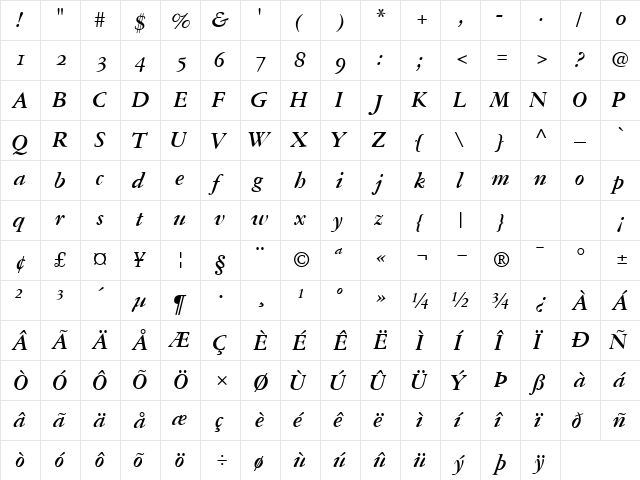
GaramondRepriseOSSSK BoldItalic Font Preview
GaramondRepriseOSSSK BoldItalic
Design Context for GaramondRepriseOSSSK Typeface
GaramondRepriseOSSSK is a composed and adaptable typeface that performs quietly and consistently across a wide range of design contexts. The dynamic lean of this cut emphasises speed and emphasis in any layout. The heavy weight commands attention and anchors typographic hierarchies.